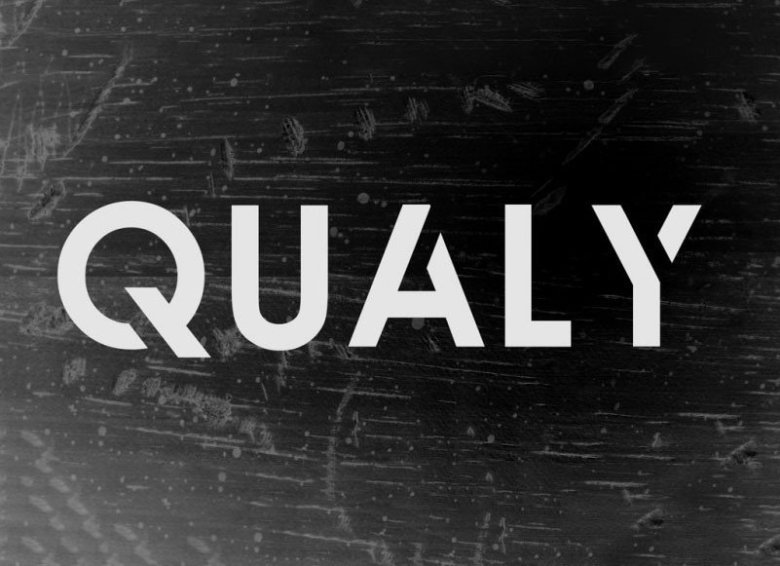
Qualy Font
Qualy is a modern and cool sans serif font. Made from font designer named Creative Killer. This font is stylish, clean, clear, firm and still looks luxurious. This font is suitable for use in business, business cards, logo names, brochures, posters etc.
Qualy Sans Serif Font